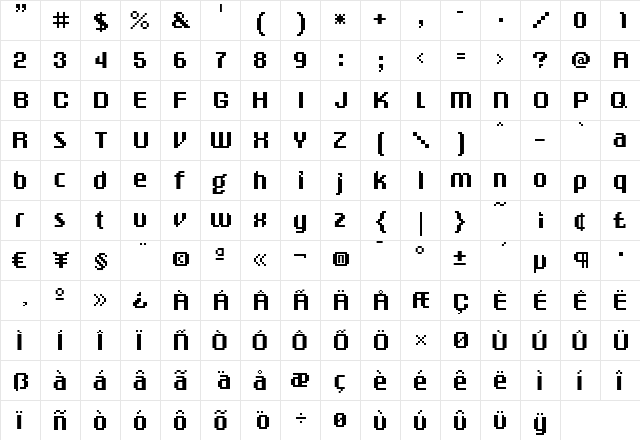
AlwaysTwelve Regular
Design Context for AlwaysTwelve Typeface
AlwaysTwelve offers clean, dependable letterforms without strong stylistic allegiance, making it a practical choice for designers who need flexibility.
Pro Tip: Use AlwaysTwelve in both headline and body roles to test its range before committing to a single application.